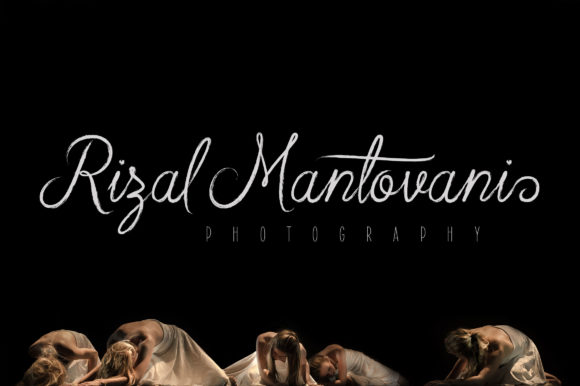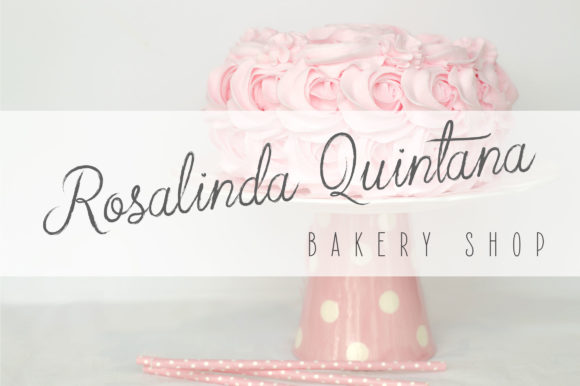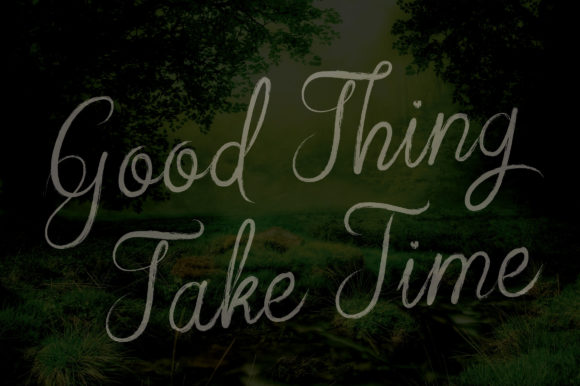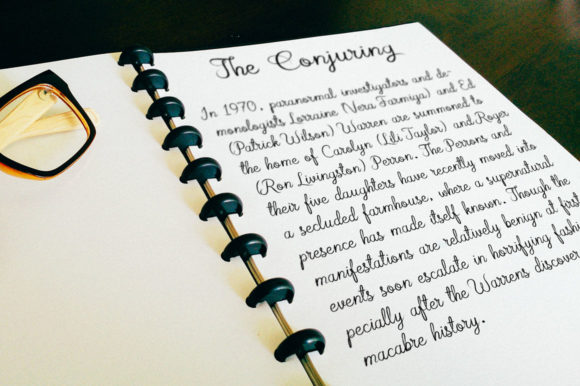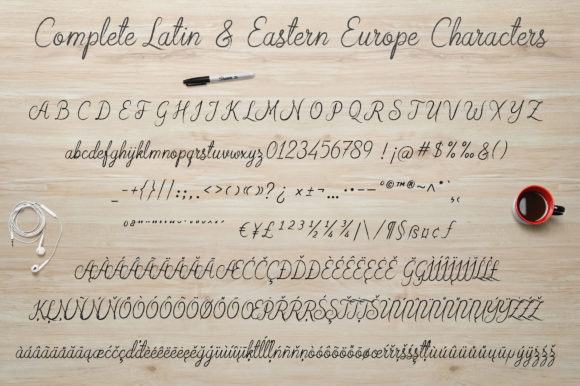
Adding a Touch of Elegance with the Arabian Script Font
Have you ever stumbled upon an invitation or a logo that left you in awe, wondering what made it so captivating? For me, it was a beautifully designed wedding invitation with the Arabian Script Font that caught my attention. The intricate, semi-bold strokes and textured shape added a level of sophistication that made it impossible to look away.
| 👤 Author | Royaltype |
The Arabian Script Font is an elegant script typeface that has been a go-to choice for designers looking to add a touch of elegance to their projects. From wedding invitations to product packages, logos, titles, subtitles, flyers, and quotes, this versatile font is perfect for any creative project that demands a sense of refinement and luxury.
Arabian Script Font Key Features
- Font Style: The Arabian Script font is a beautiful, elegant script font that is perfect for creating a luxurious and exotic feel in your designs.
- Language Support: Supports a range of languages, including Arabic, Persian, and Urdu, making it a great choice for designers working on international projects.
- Unique Characteristics: The font features intricate connections between letters, giving it a unique and beautiful feel that is reminiscent of traditional Arabic calligraphy.
Designer Review: Arabian Script Font
As a designer, I was excited to try out the Arabian Script Font, hoping to bring a touch of elegance to my projects. Here’s my honest review.
- The font’s intricate details and ornate flourishes are reminiscent of traditional Arabic calligraphy, which I think is a beautiful addition to modern design.
- The font is highly customizable, allowing me to adjust the stroke width, letter spacing, and other parameters to suit my design needs.
- The font is quite dense and may not be the best choice for smaller text sizes or body copy, as it can be difficult to read.
- The font’s complexity and ornateness may not be suitable for all design projects, particularly those with a more minimalist or modern aesthetic.
Overall, I think the Arabian Script Font is a beautiful and unique addition to any designer’s toolkit. While it has some limitations, I believe its strengths outweigh its weaknesses, making it a great choice for designers who want to add some flair to their projects.
The Arabian Script font is commonly used in:
- Arabic and Middle Eastern design
- Cultural and traditional designs
- Business cards and logos
Tip: Use the font to add a touch of cultural and traditional flair to your designs.